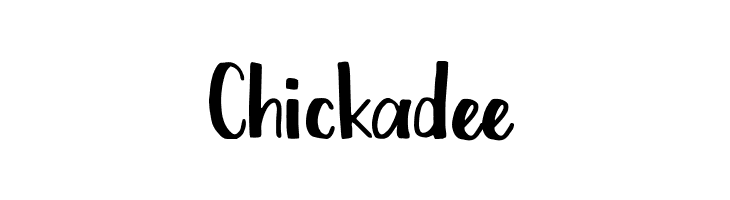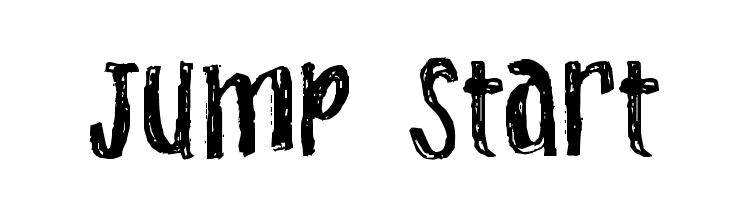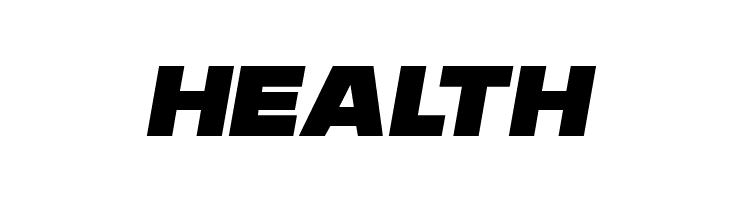
A bold, textured font with a 3D effect created by diagonal hatching.
A bold, left-slanted font with a dynamic and energetic style.
A bold, playful outline font with a cartoonish, three-dimensional style.
Ornamental icon set with East Asian-inspired motifs in bold, geometric style.
Modern sans-serif font with geometric shapes.
A modern, extra bold italic sans-serif font with a dynamic and assertive style.
A lively handwritten font with fluid, dynamic strokes and a personal touch.
A bold, pixelated font with a retro digital aesthetic.
A bold, rounded font with characters enclosed in circles, offering a playful and striking look.
A playful, quirky font with bold and thin strokes, ideal for informal designs.
A bold, brush-style font with dynamic and energetic characters.
A bold, 3D architectural font with a strong, modernist style.
A bold, decorative font with a vintage, three-dimensional style.
A bold, 3D font with a playful and modern aesthetic, featuring outlined characters with a shadow effect.
A bold, condensed outline font with a modern and sleek appearance.
A playful, handwritten font with rounded, bubbly characters and a casual style.
A bold, playful font with dynamic, angular characters and a cartoonish style.
A bold, modern font with a gradient effect created by horizontal lines, conveying motion and energy.
A bold, decorative font with a houndstooth pattern.
A lively, handwritten font with playful and irregular strokes.
A modern, oblique font with a geometric and dynamic style.
A hand-drawn, casual font with uneven strokes and a playful appearance.
A decorative and artistic font with intricate patterns and unique embellishments.
A geometric, angular font with a futuristic and digital aesthetic.
A bold, italic Blackletter font with sharp, angular strokes and a gothic aesthetic.
A bold, angular font with a futuristic and aggressive style.
A decorative font inspired by ancient runic symbols, featuring geometric characters within circles.